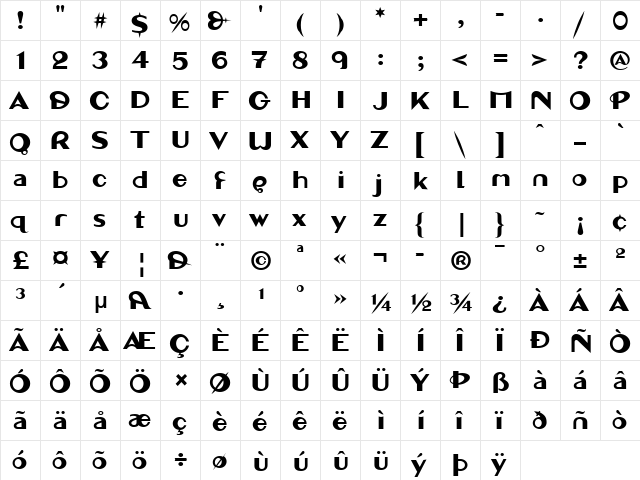
LTMarcuSan Medium Font Preview
LTMarcuSan Medium
LTMarcuSan Medium Font Details
Design Context for LTMarcuSan Typeface
LTMarcuSan is a composed and adaptable typeface that performs quietly and consistently across a wide range of design contexts.